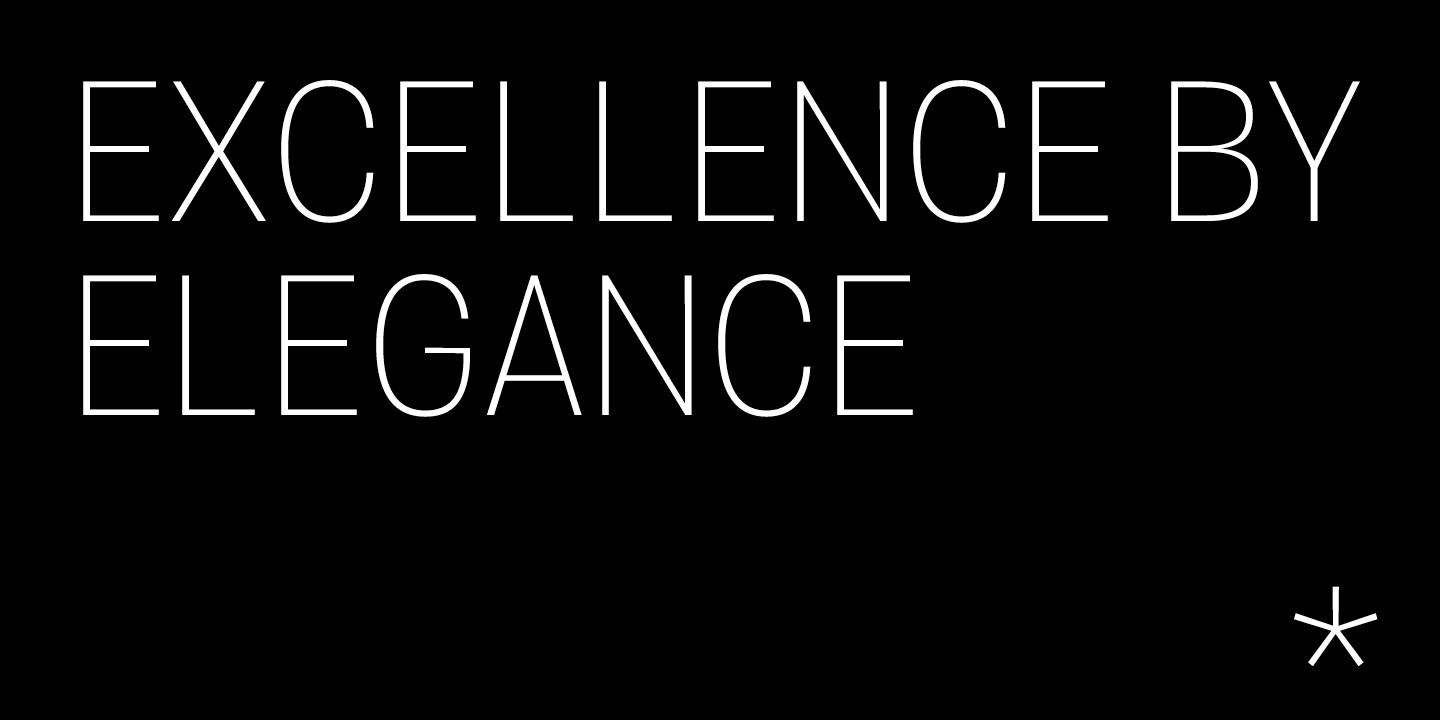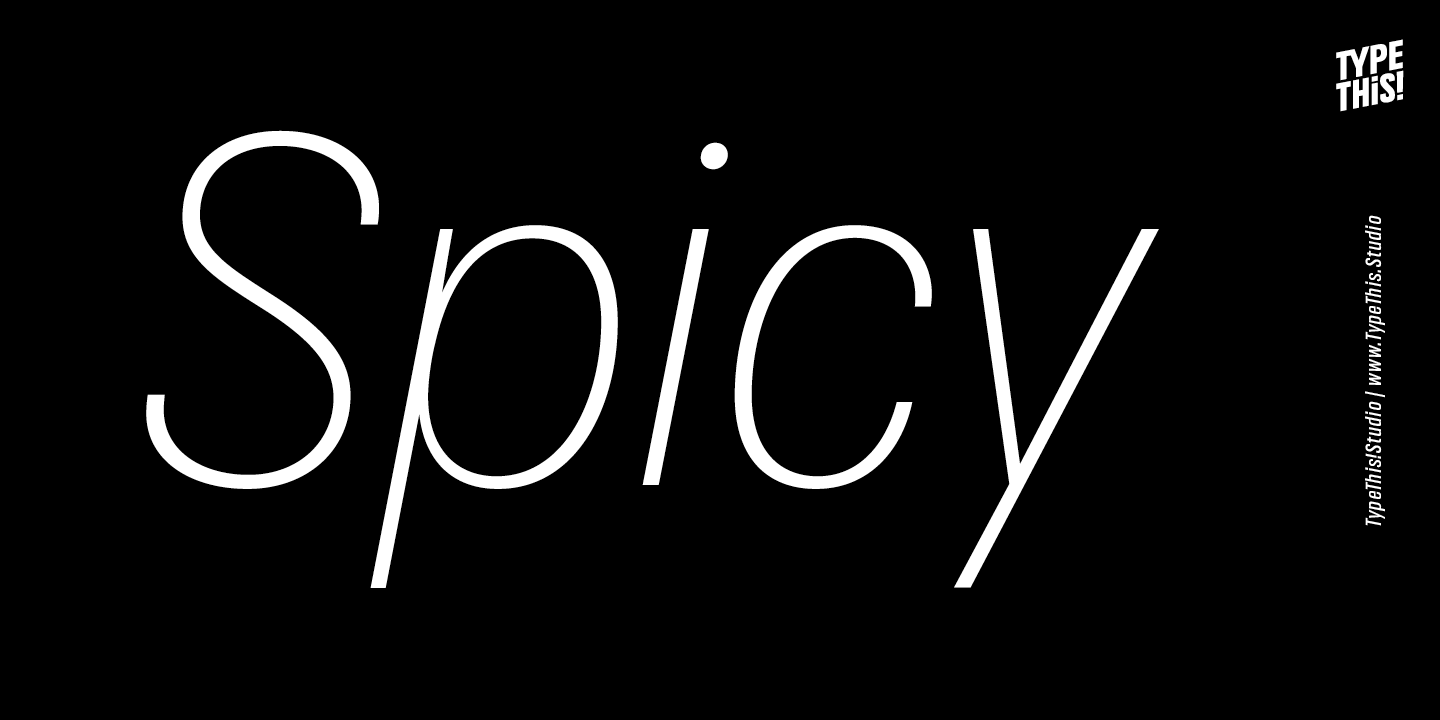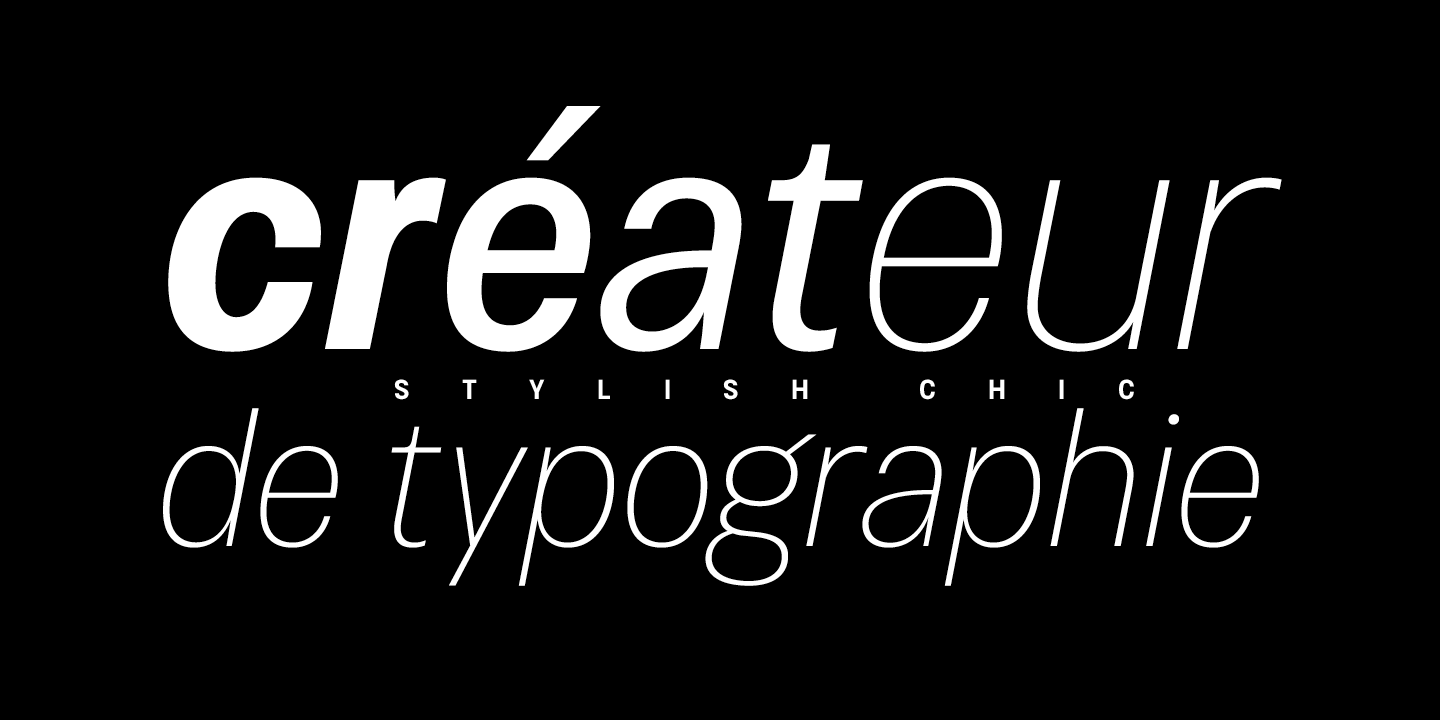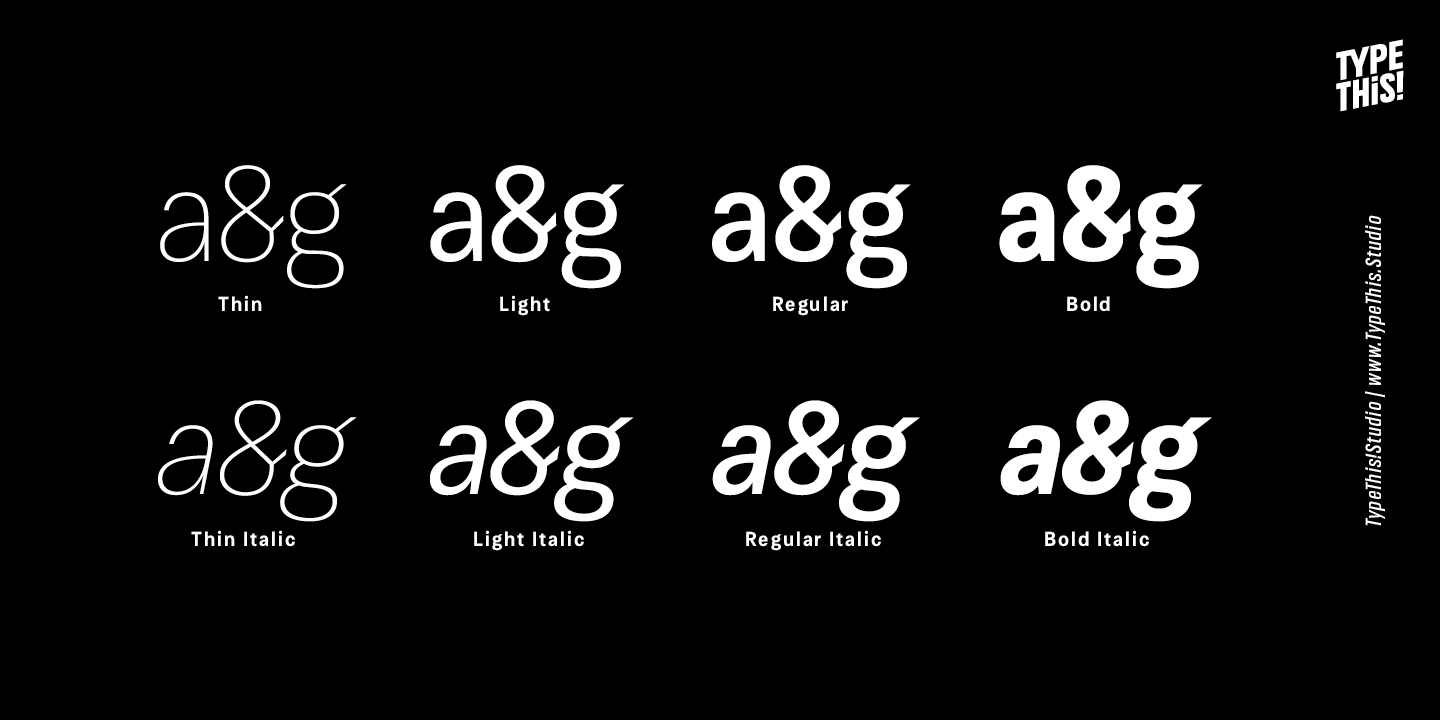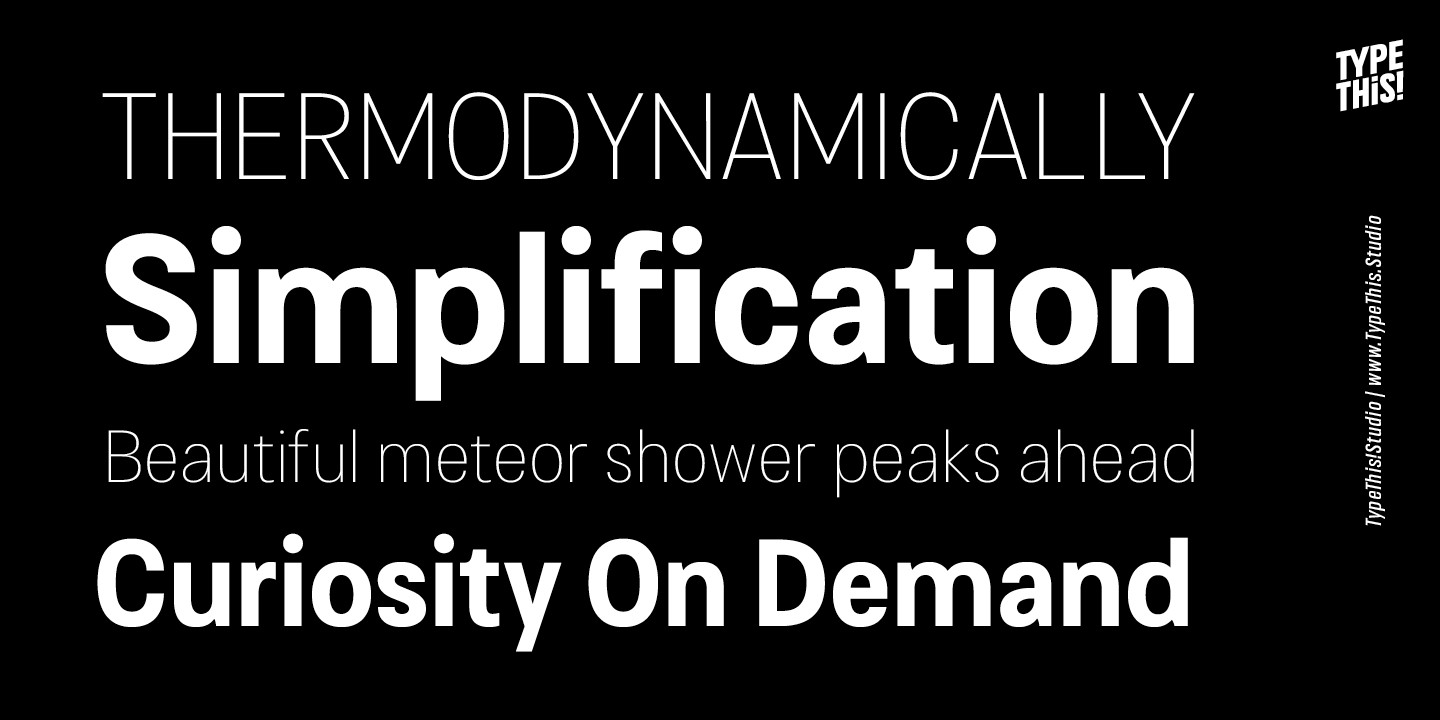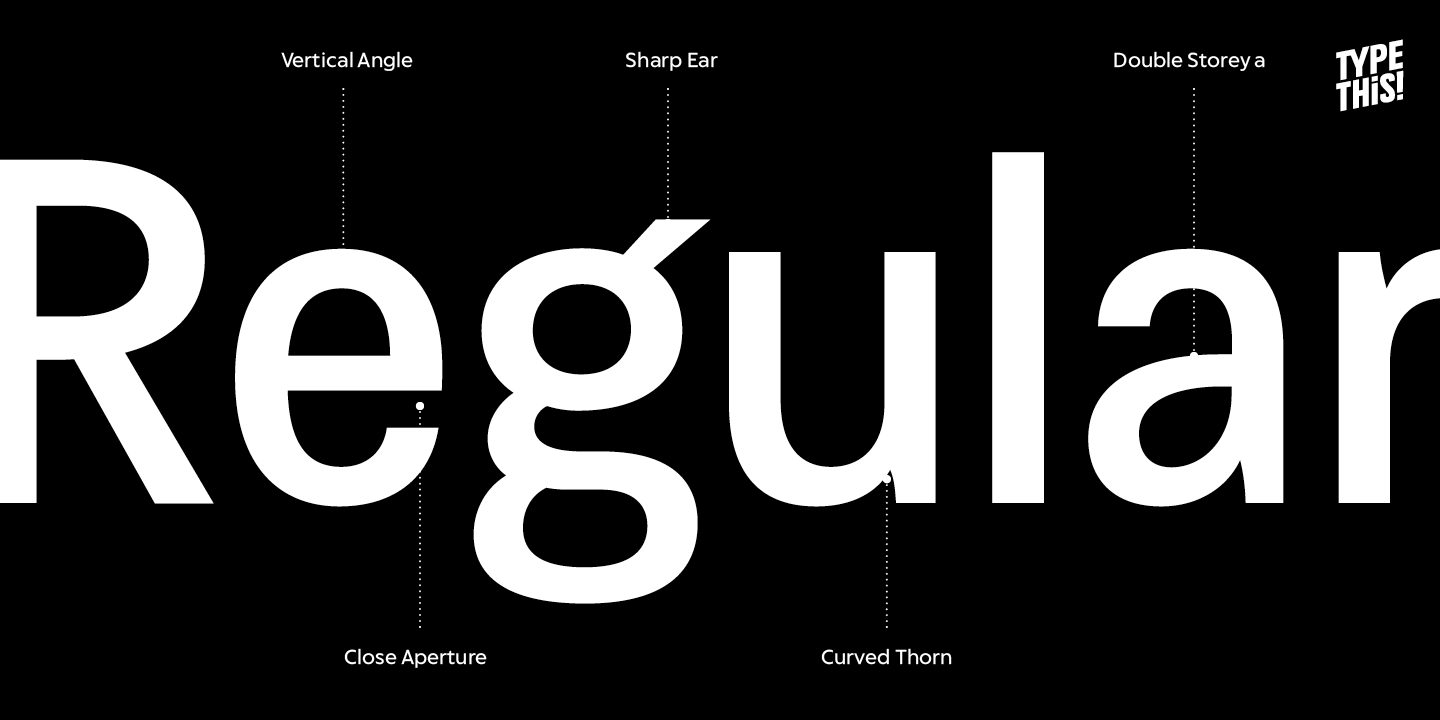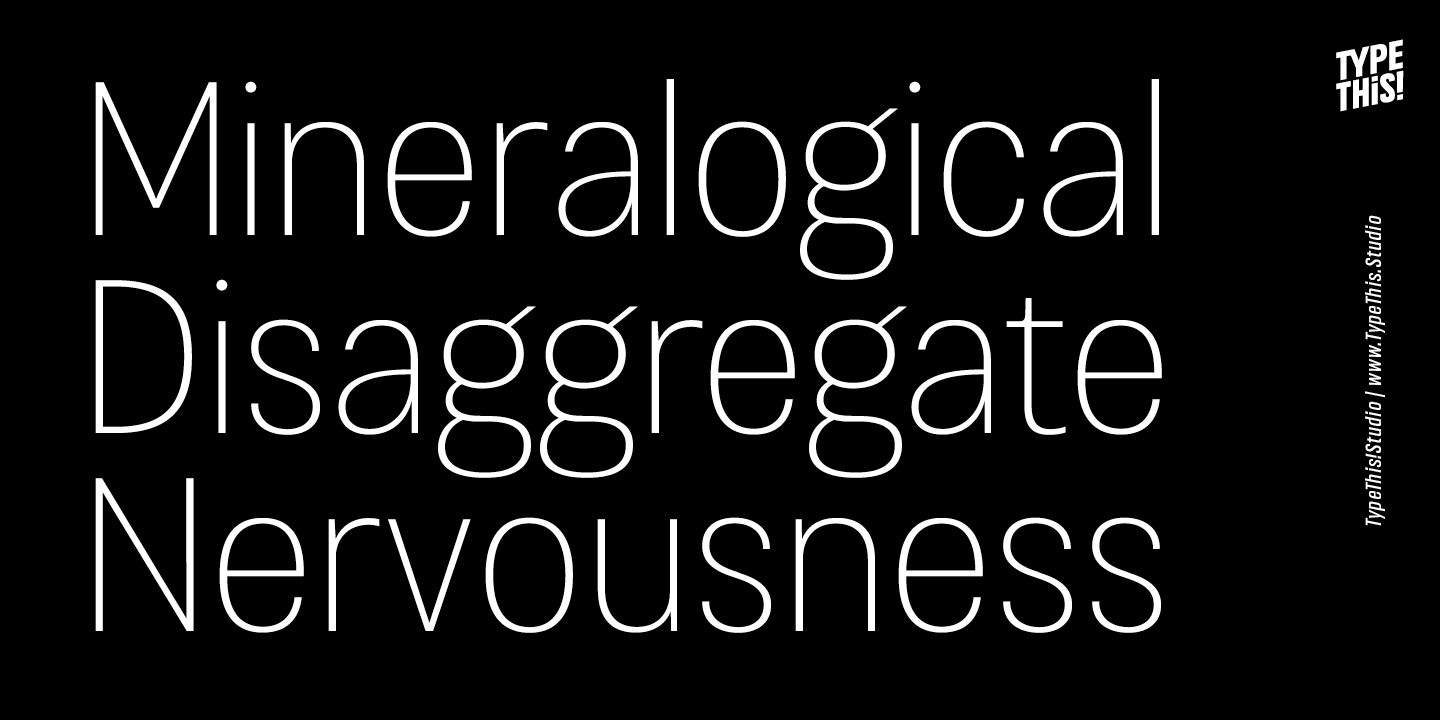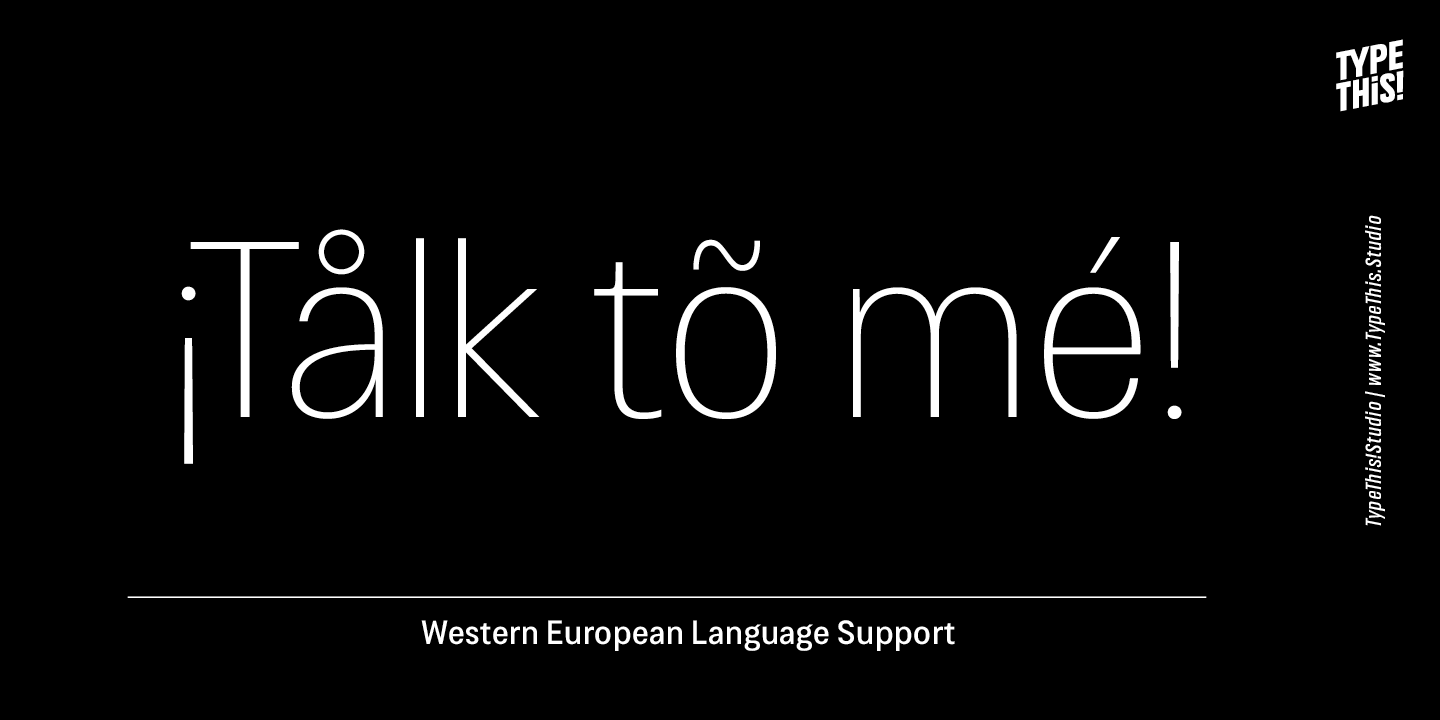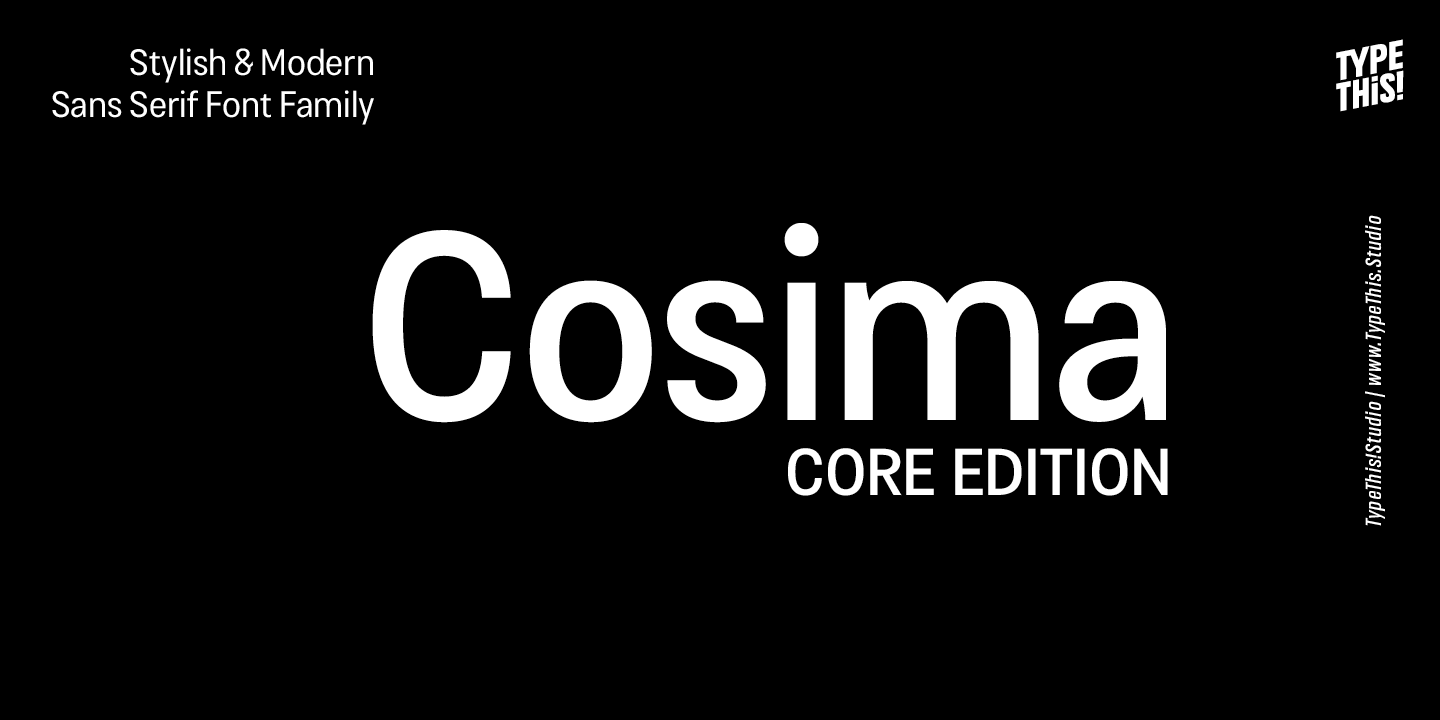
HomeFont BrosContemporaryCosima Core ContemporarySans SerifNow on Sale! Cosima Core FacebookXPinterestWhatsApp 1 of 10 About Cosima Core Cosima is a sans serif workhorse with a touch of pointy elegance, designed by Anita J  DOWNLOAD NOW People also explored Misterall Font Bettlunerd Font Yilactha Font Monogram Rainbow Font Lamplighter Script Cendiland Font Westbake Font Sweet Love Font Authentic Font 376 0 TagsCosima Core Font Previous articleSalty DogNext articleBeagley Display LEAVE A REPLY Cancel reply Comment: Please enter your comment! Name:* Please enter your name here Email:* You have entered an incorrect email address! Please enter your email address here Website: Save my name, email, and website in this browser for the next time I comment. Personal Use Free Xplor Personal Use Free Read more about this font Doriss Girls Family Personal Use Free Read more about this font Pompom Personal Use Free Read more about this font Puisi Adinda Personal Use Free Read more about this font BLOG To increase your work productivity, choose the most readable fonts. In today's fast-paced work environment, where digital communication and information consumption are integral to our daily routines, the choice of fonts can significantly impact... Free Fonts Risk: Why Free Fonts Can Be Dangerous for Designers Transform Your Website: Elevate Your Typography with 7 Best Web Font Generators Using Fonts in Digital Marketing: Tips to Strengthen Your Brand Identity